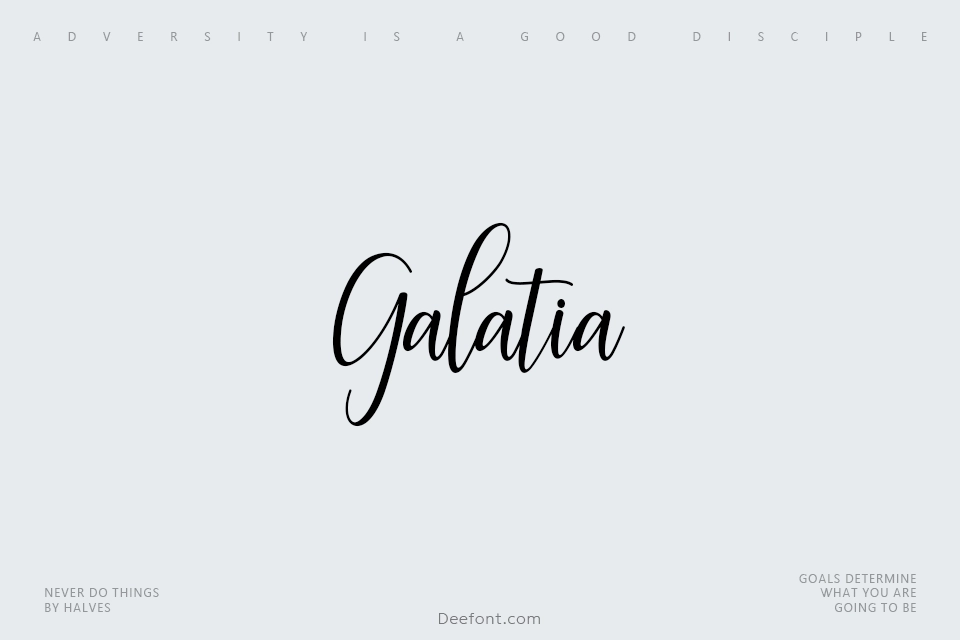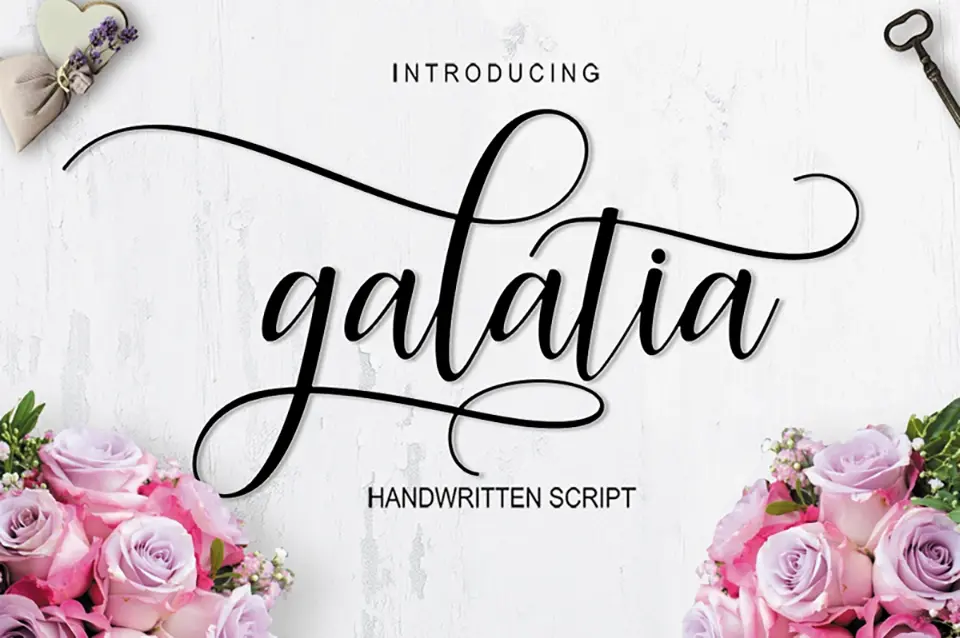
Galatia Font
Galatia is an elegant script and calligraphy typeface designed with flowing strokes and decorative flourishes. Featuring 208 glyphs with support for accents and special characters, this versatile font excels in creating sophisticated typography for invitations, posters, branding, and creative projects. With over 440 alternate glyphs accessible through OpenType features like Swash and Stylistic Alternates, Galatia offers designers extensive customization options for refined and artistic compositions.
Designed by:Amarlettering – TakiyWebsite